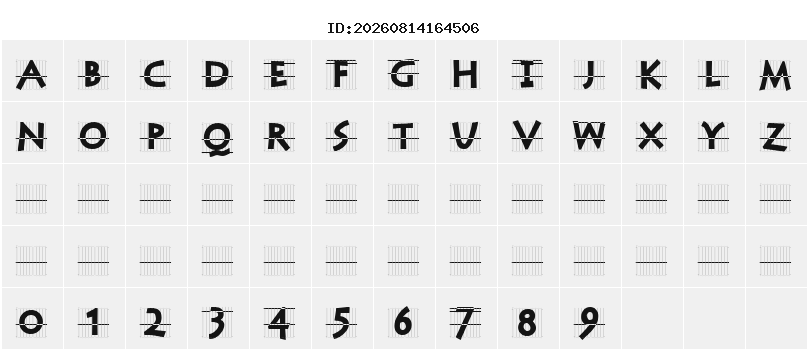
• Font Name: StoneCapsIngrid
• Full Font Name: StoneCapsIngrid
About StoneCapsIngrid.ttf
StoneCapsIngrid.ttf is a modern, elegant sans-serif font designed for ultimate readability and visual harmony. Perfect for branding, headlines, web design, and print materials.